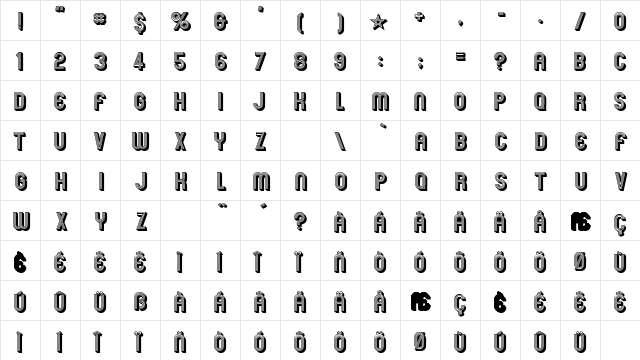
Mexcellent 3D Regular
Design Context for Mexcellent 3D Typeface
Mexcellent 3D is a composed and adaptable typeface that performs quietly and consistently across a wide range of design contexts.